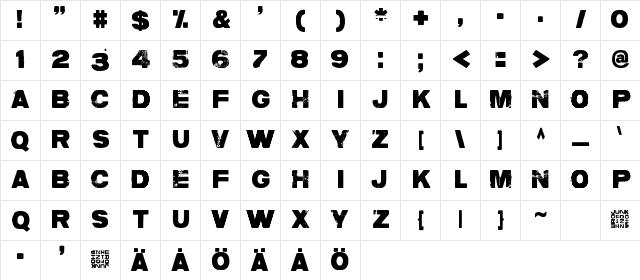
Charlie don't surf! Regular Free Font
Charlie don't surf! Regular
Designer: junkohanhero
Design Context for Charlie don't surf!
Charlie don't surf! is a composed and adaptable typeface that performs quietly and consistently across a wide range of design contexts.